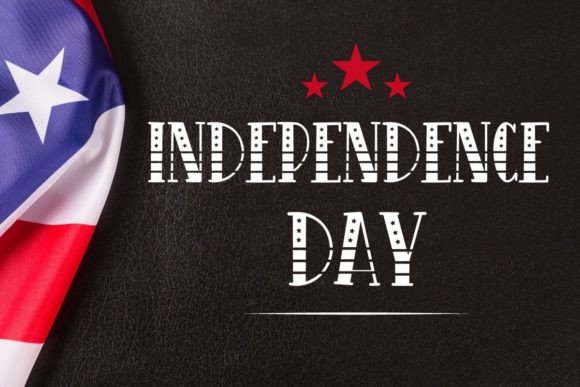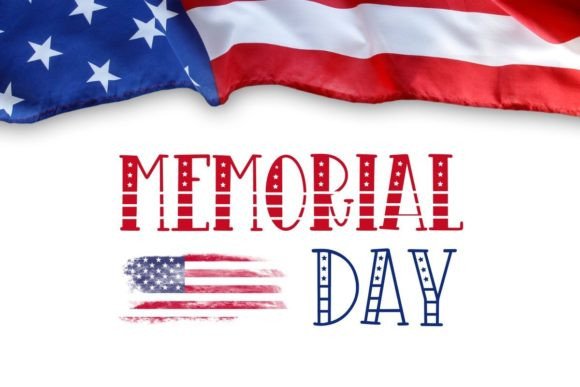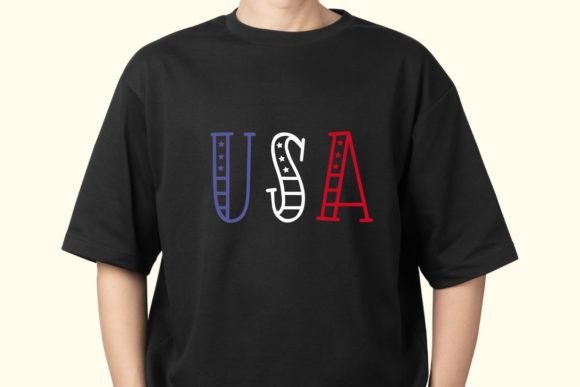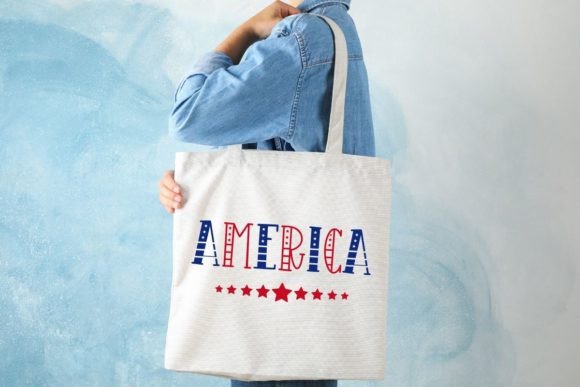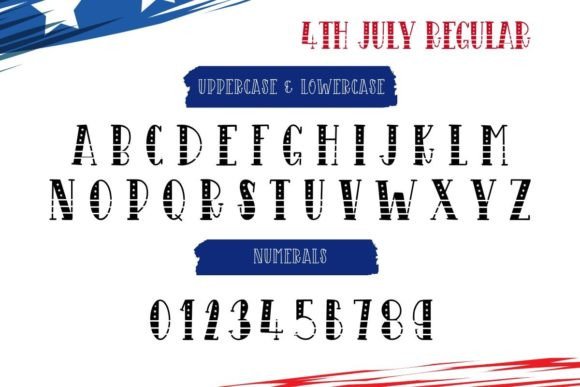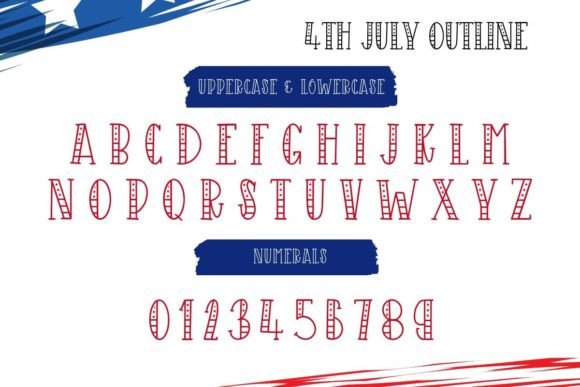
Introducing the 4th July Font: A Fun and Cute Decorative Font for Patriotic Celebrations
Are you looking for a unique and festive font to make your Independence Day designs stand out? Look no further than the 4th July Font! This fun and cute decorative font is perfect for creating cool designs for the 4th of July celebration and other patriotic events. In this article, we’ll take a closer look at the 4th July Font and explore its features, benefits, and uses.
What is the 4th July Font?
The 4th July Font is a decorative font that uses stars to decorate the letters, matching the theme of the 4th of July celebration. This font has a lovely quirky vibe that will add a playful touch to your designs. The font is designed to be easy to read and use, making it perfect for a variety of design projects, from party invitations and decorations to social media graphics and more.
Key Features of the 4th July Font
Here are some of the key features that make the 4th July Font a great choice for your patriotic designs:
- Unique and festive design: The 4th July Font features a unique and festive design that is perfect for Independence Day and other patriotic celebrations.
- Star decorations: The font uses stars to decorate the letters, adding a playful touch to your designs.
- Lovely quirky vibe: The font has a lovely quirky vibe that will add a playful touch to your designs.
- Easy to read and use: The font is designed to be easy to read and use, making it perfect for a variety of design projects.
Benefits of Using the 4th July Font
Here are some of the benefits of using the 4th July Font for your patriotic designs:
- Adds a playful touch: The 4th July Font adds a playful touch to your designs, making them more engaging and fun.
- Perfect for Independence Day: The font is specifically designed for Independence Day and other patriotic celebrations, making it a great choice for designers and crafters.
- Versatile: The font can be used for a variety of design projects, from party invitations and decorations to social media graphics and more.
Uses of the 4th July Font
The 4th July Font can be used for a variety of design projects, including:
- Party invitations: Create festive and fun party invitations that will set the tone for your Independence Day celebration.
- Decorations: Use the font to create festive decorations, such as banners, garlands, and more.
- Social media graphics: Create engaging social media graphics that will help you celebrate Independence Day in style.
- Craft projects: Use the font to create fun and festive craft projects, such as DIY cards, gift tags, and more.
Tips for Using the 4th July Font
Here are some tips for using the 4th July Font:
- Use it with patriotic colors: Use the font with patriotic colors, such as red, white, and blue, to create a cohesive and festive design.
- Experiment with different sizes: Experiment with different font sizes to create a unique and eye-catching design.
- Pair it with other fonts: Pair the 4th July Font with other fonts to create a unique and interesting design.
| Font Name | 4th July Font |
| Author | AnningArts |
The 4th July Font is a fun and cute decorative font that is perfect for creating cool designs for Independence Day and other patriotic events. With its unique and festive design, lovely quirky vibe, and ease of use, this font is a great choice for designers and crafters. Whether you’re creating party invitations, decorations, social media graphics, or craft projects, the 4th July Font is sure to add a playful touch to your designs.